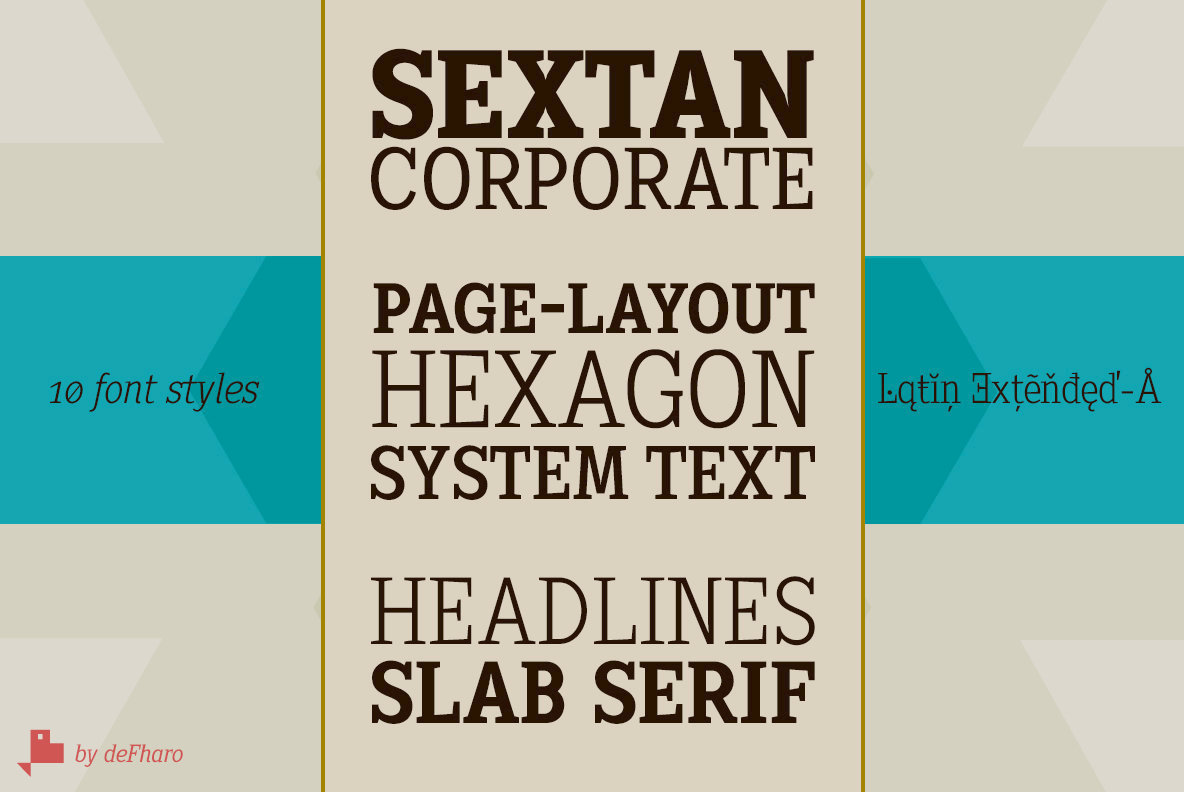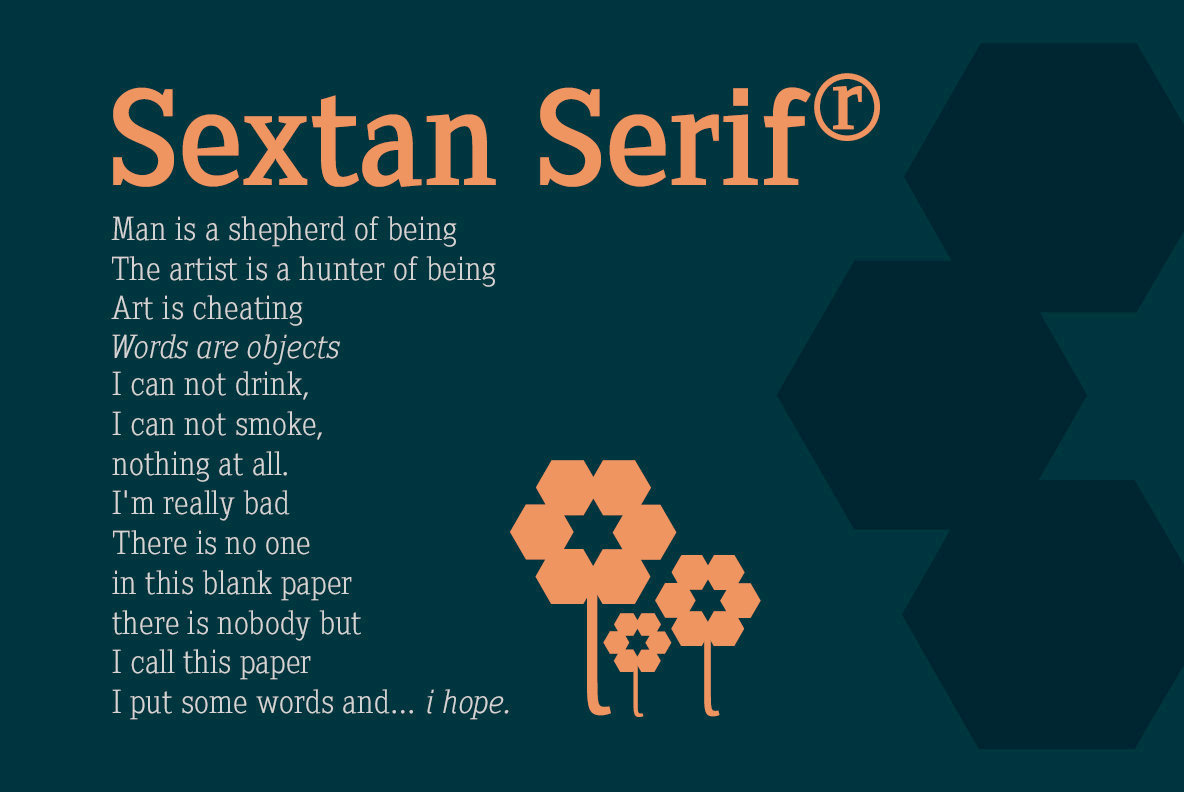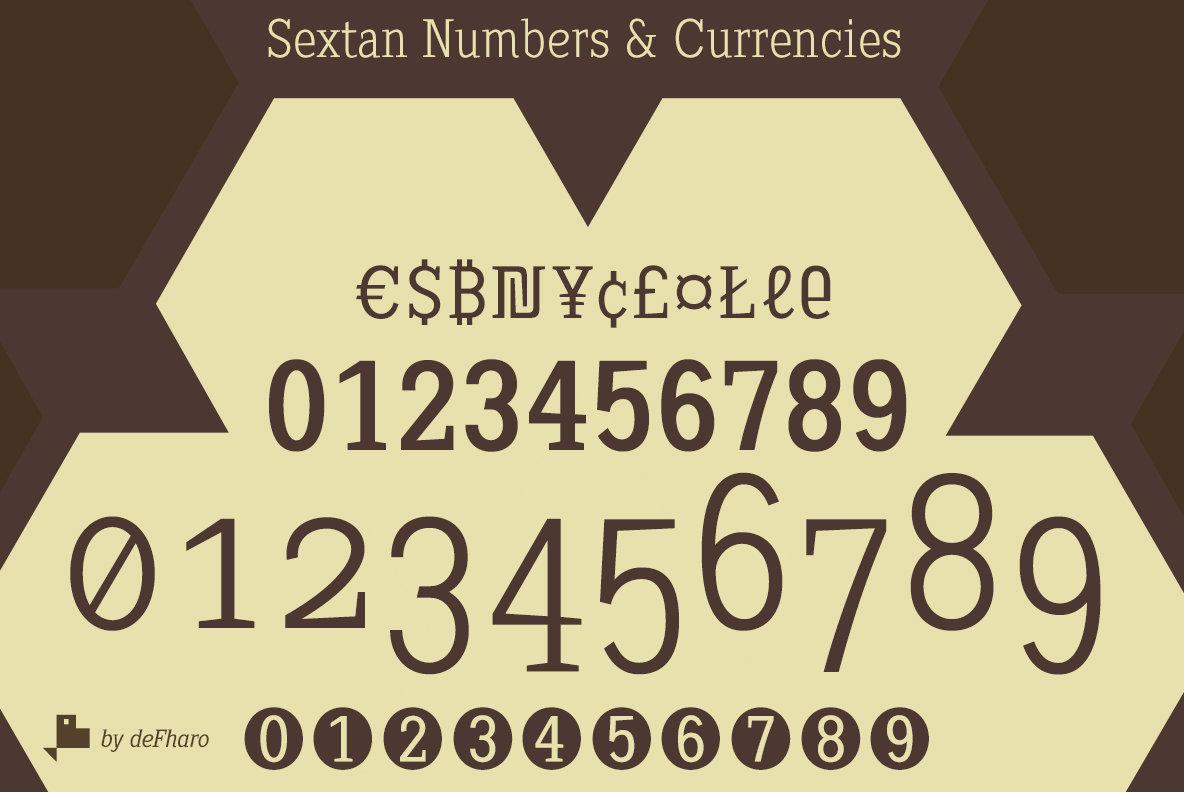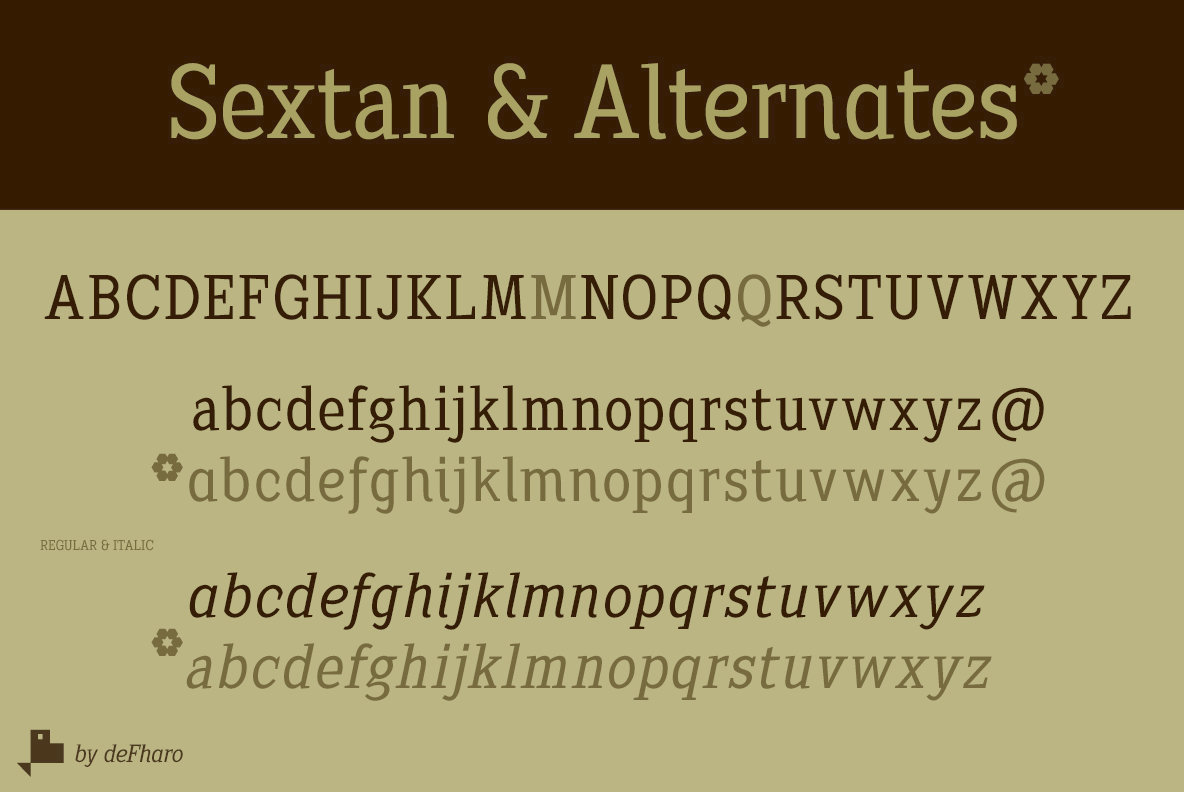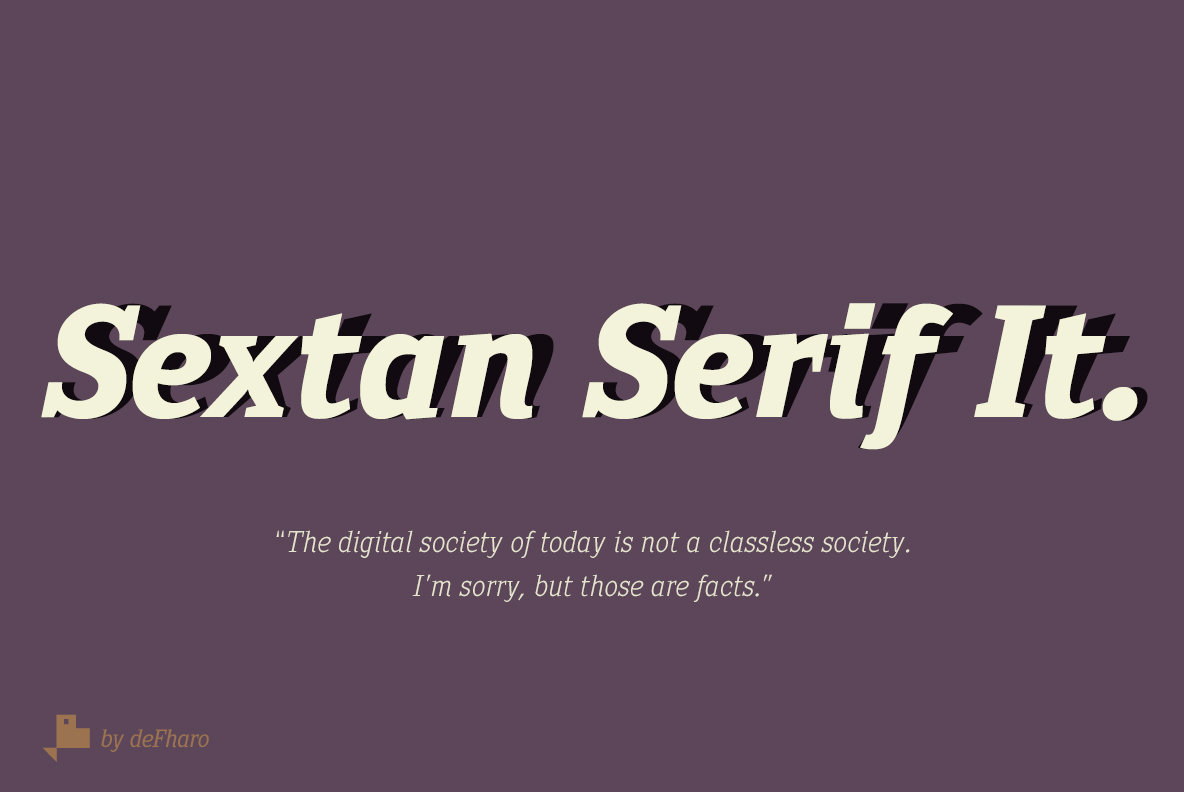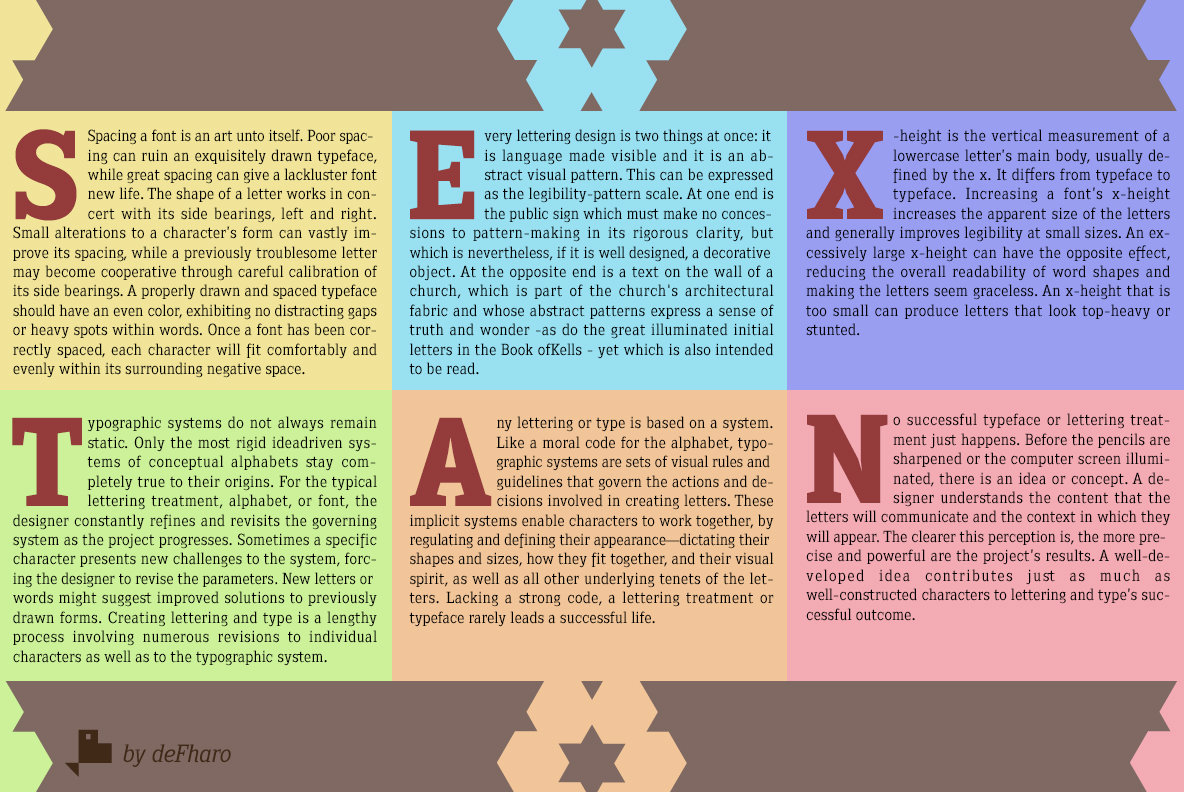
Sextan Serif Font
Sextan serif is a typographic family with 10 styles designed for editorial, corporate, advertising or web use. The excellent readability allows the use in long texts, the coherence of forms make these fonts have a great personality.
The fonts have an extra set of lower case letters accessible through the Discretional Ligatures. Also support for Open Type Functions such as Ordinals, Capital Spacing, Superiors, Denominators, Localized Forms, Inferiors, All Alternates, Discretionary Ligatures, Subscript, Scientific Inferiors, Superior letters, Oldstyle Figures, Numerators, etc. Includes the Bitcoin symbol: b #